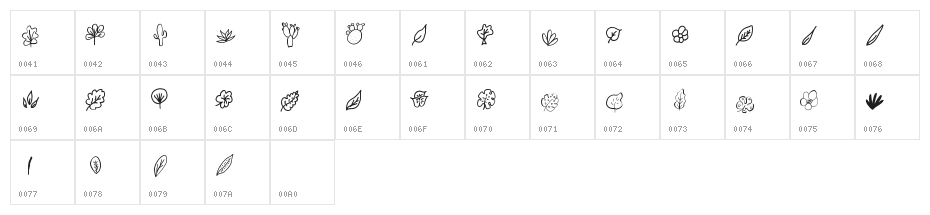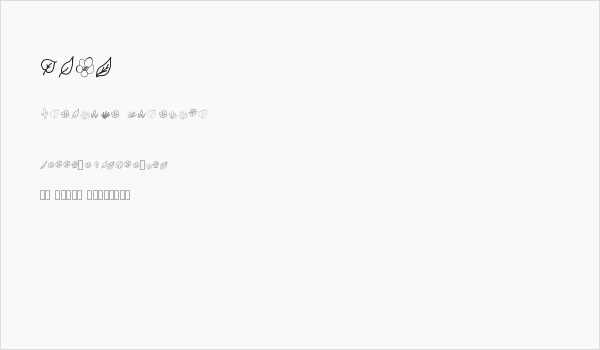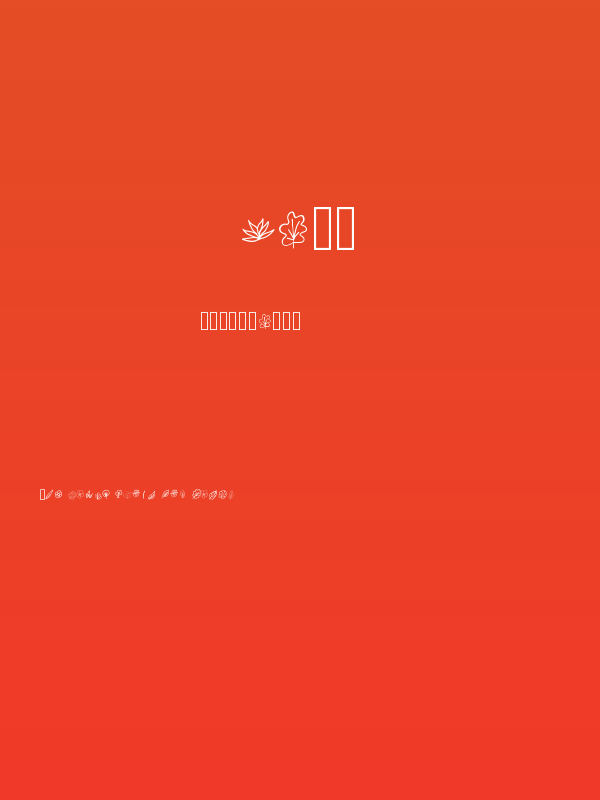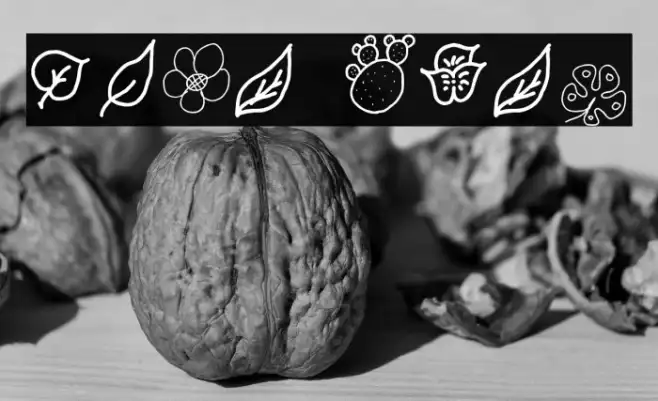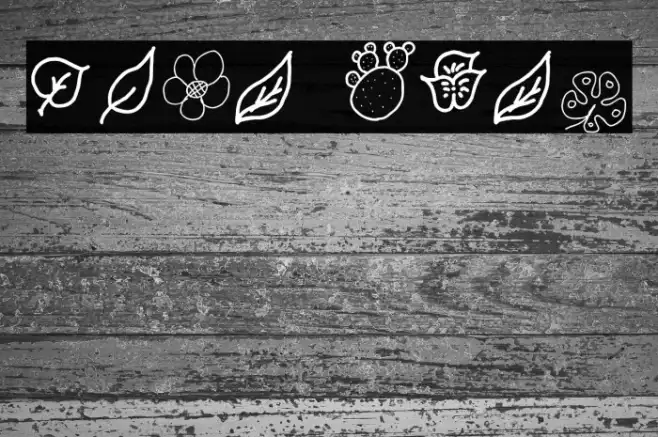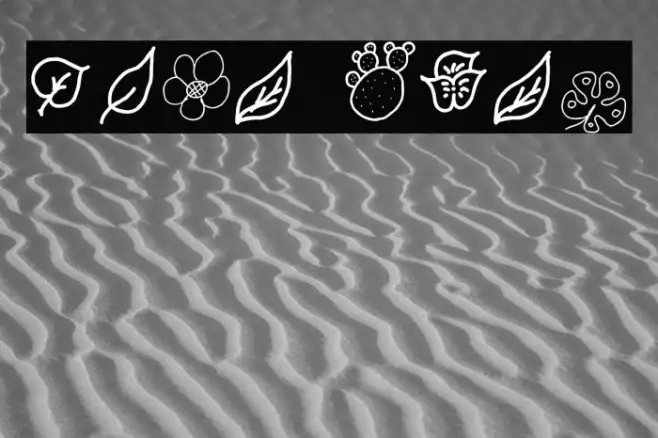
daun Font
daun Description
A playful, hand-drawn decorative font featuring various leaf, plant, and cactus illustrations as glyphs. The lines are clean and slightly varied in thickness, giving a whimsical and organic feel. Each character is represented by a unique botanical doodle, making it highly distinctive and visually engaging.
| Overall Style | Decorative, Playful, Organic |
| Use Case | Logos, Headlines, Decorative elements, Themed graphics |
| Proposed Projects | Nature-themed branding, eco-friendly packaging, children's books, gardening blogs, event invitations, decorative headings. |